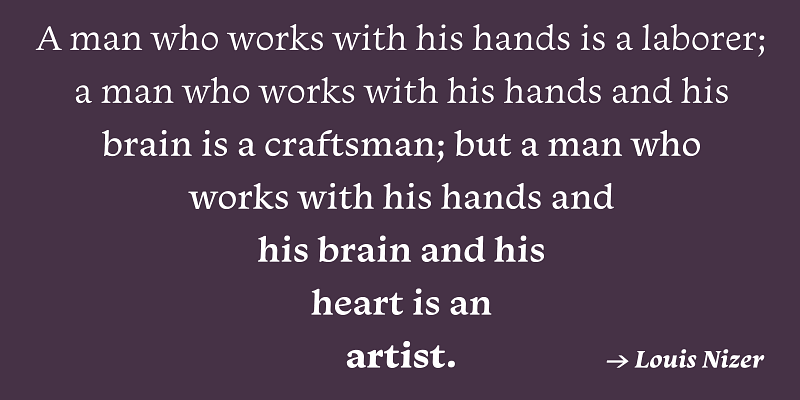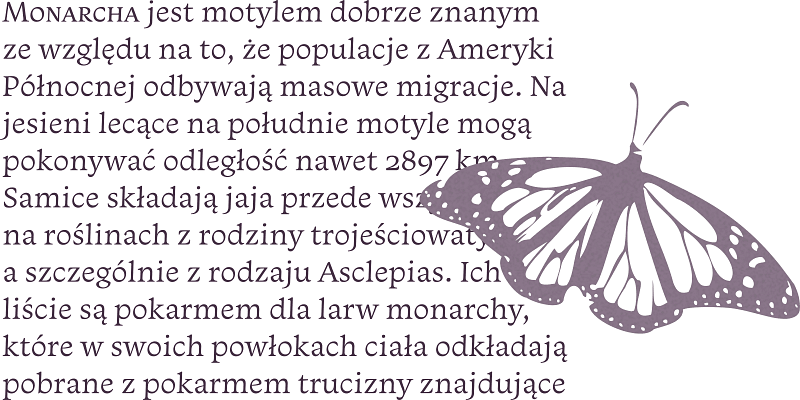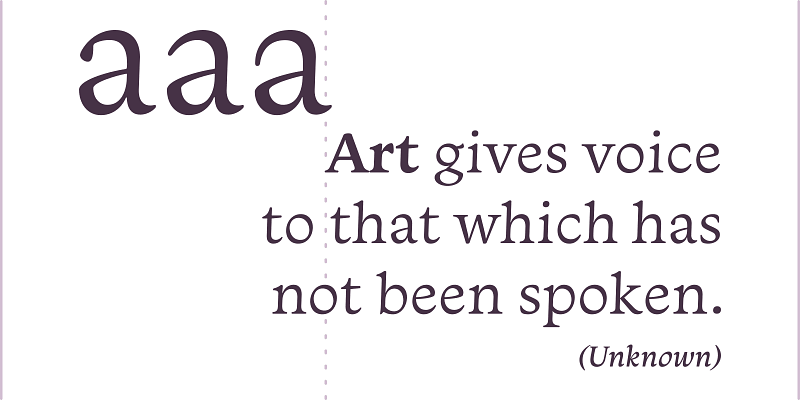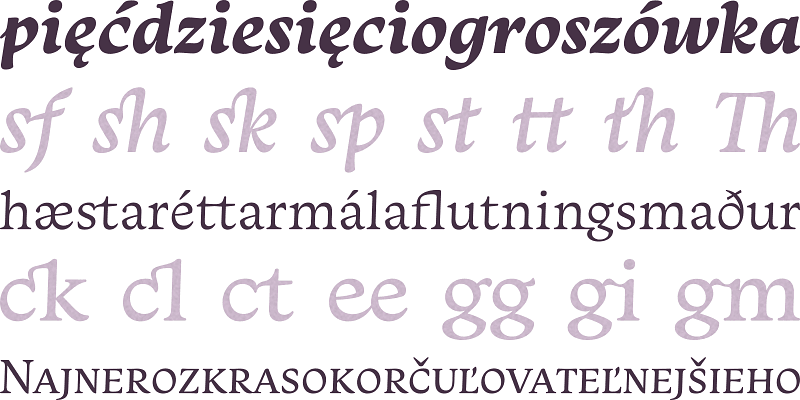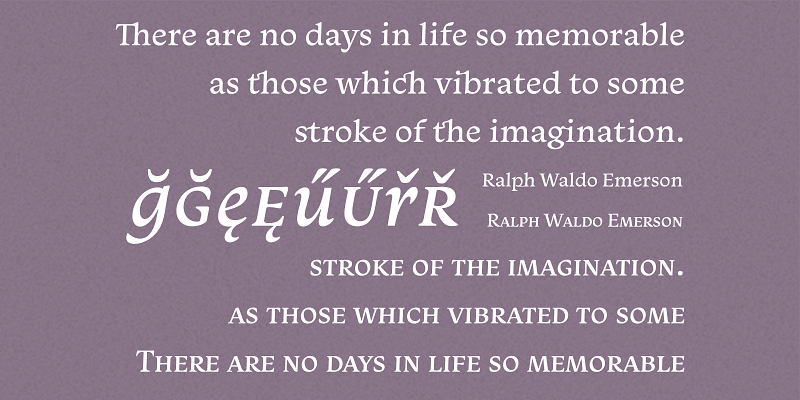
Monarcha has a beautiful, calligraphic rhythm in its strokes, anchored by the strong terminal serifs. A relatively high x-height makes for a balanced typeface, with delicious fluidity and texture.